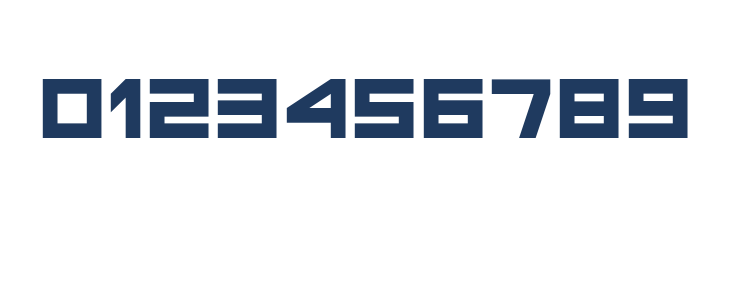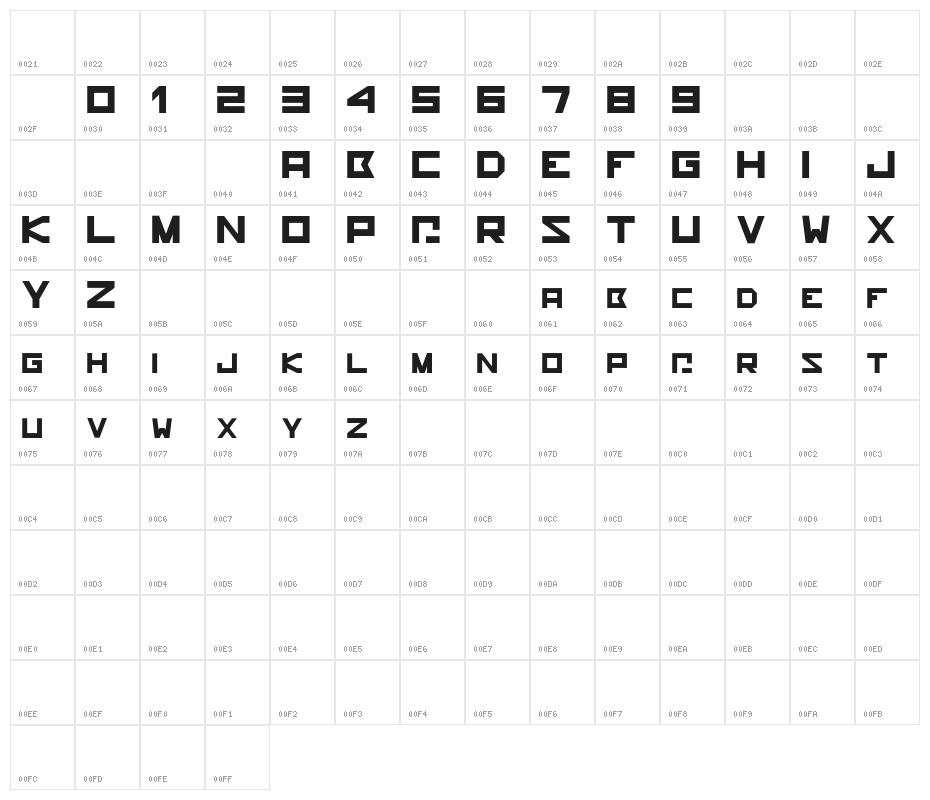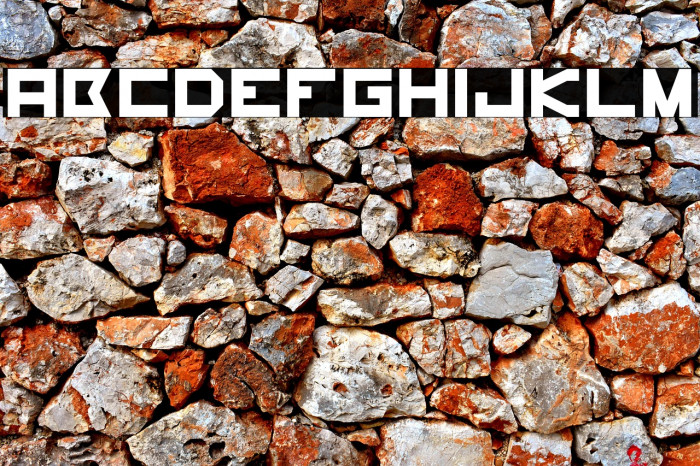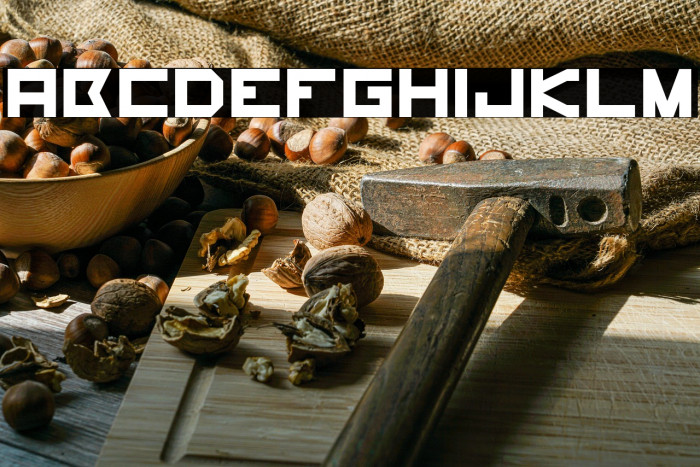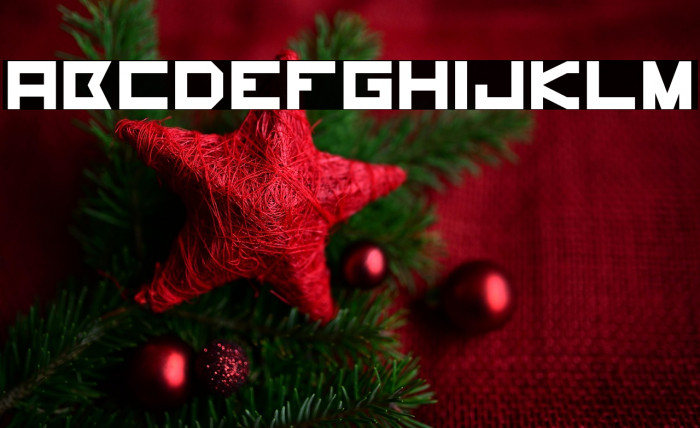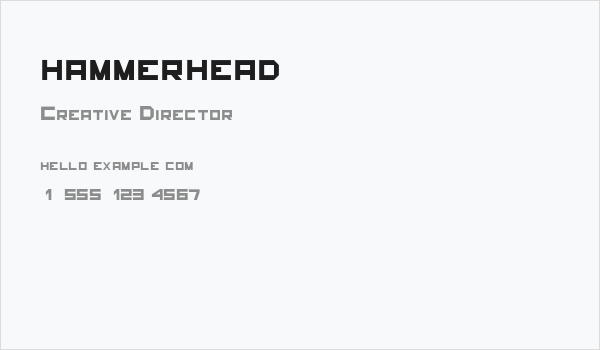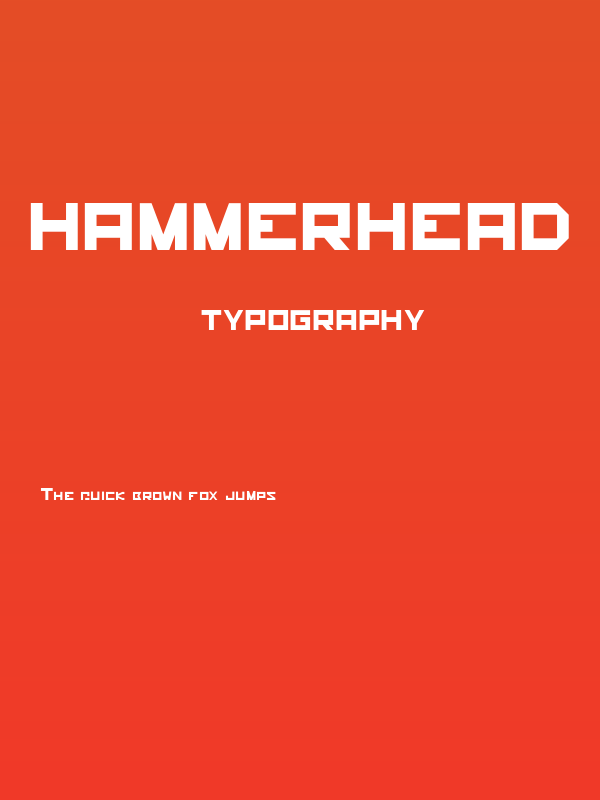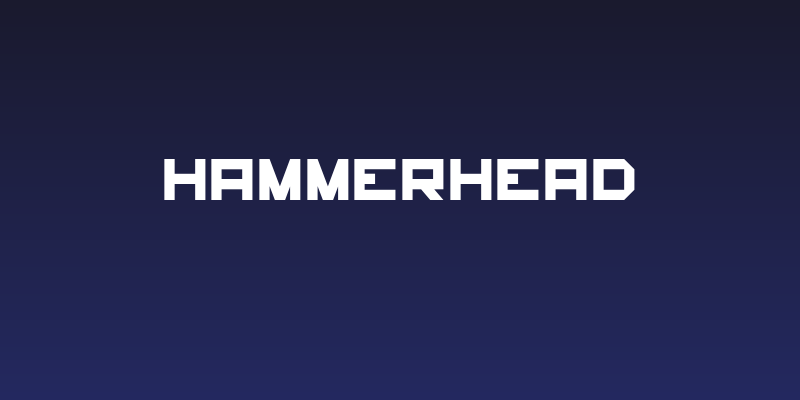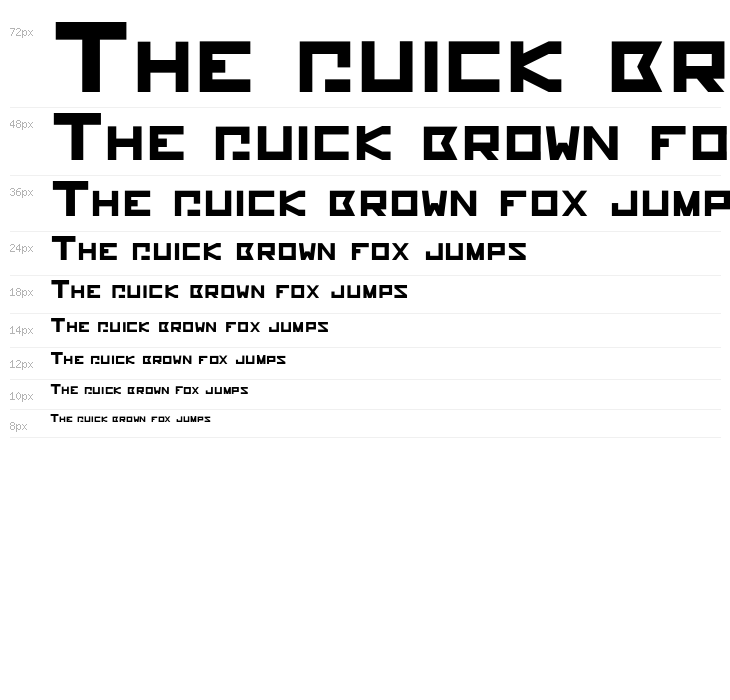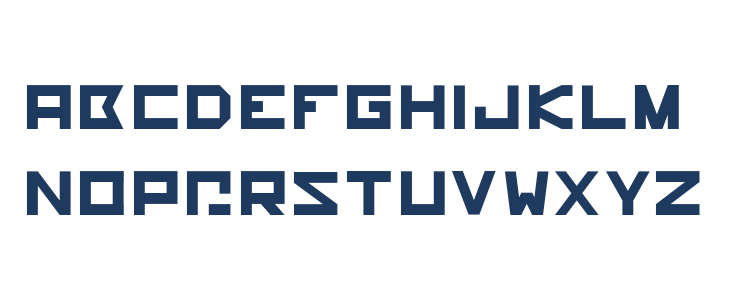
hammerhead Font
hammerhead Description
This font features a bold, geometric design with sharp angles and a futuristic aesthetic. The characters are constructed with straight lines and angular cuts, giving them a distinct, edgy appearance. The uppercase letters are uniform in height, while the numerals maintain a consistent style that complements the alphabet. The font's design is reminiscent of digital or sci-fi themes, making it ideal for projects that require a modern and technological feel. The overall structure is solid and impactful, ensuring high readability even at smaller sizes.